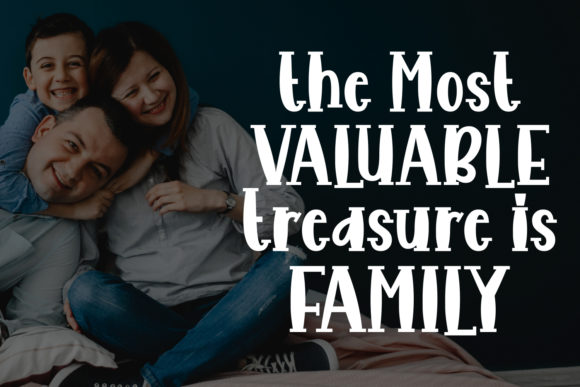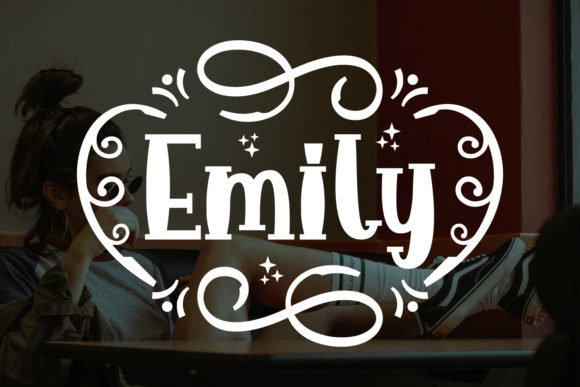
Comeback to Hometown Font
About Comeback to Hometown Font
Comeback to Hometown is a whimsical and charming handwritten font with a bold twist. Fall in love with its down-to-earth feel!